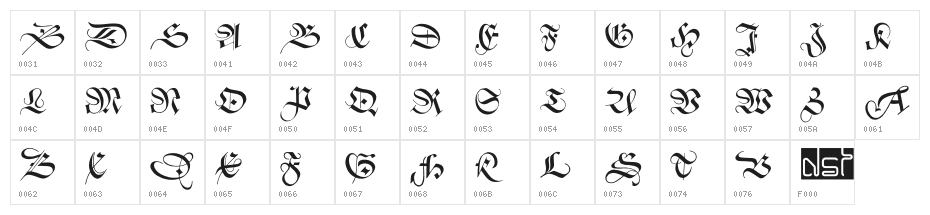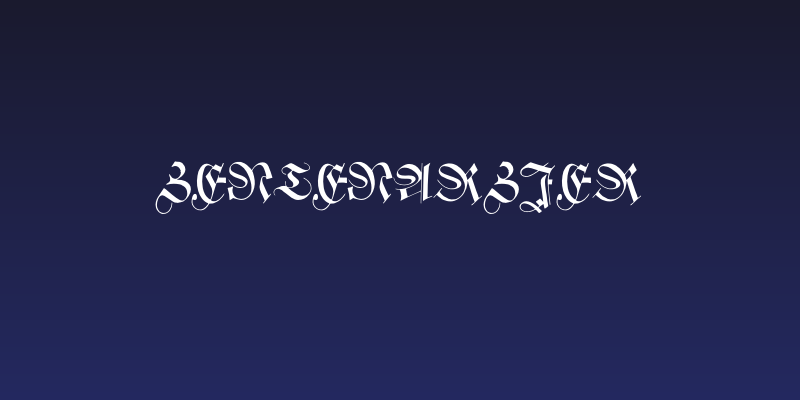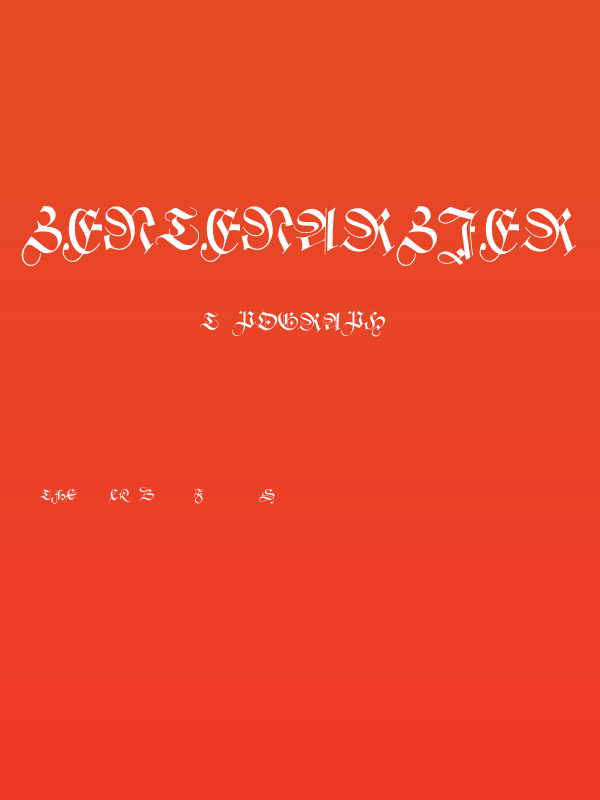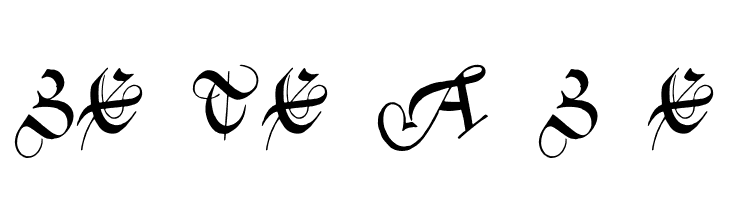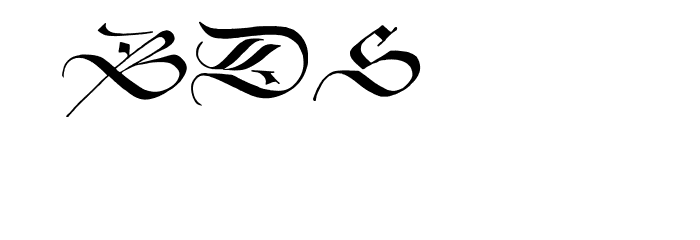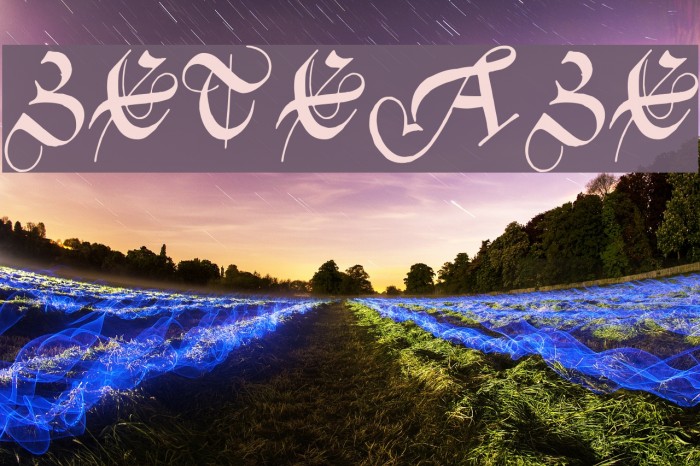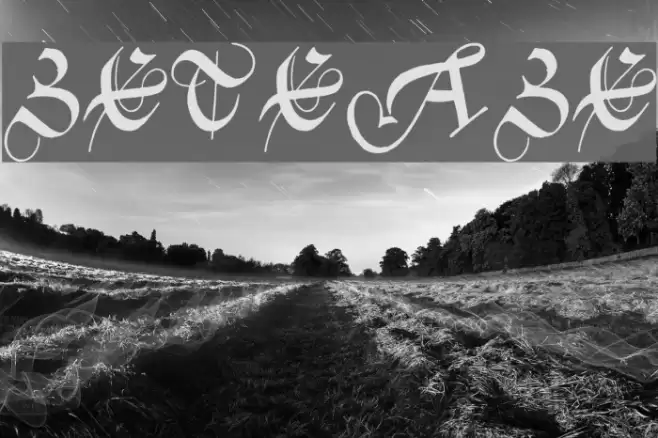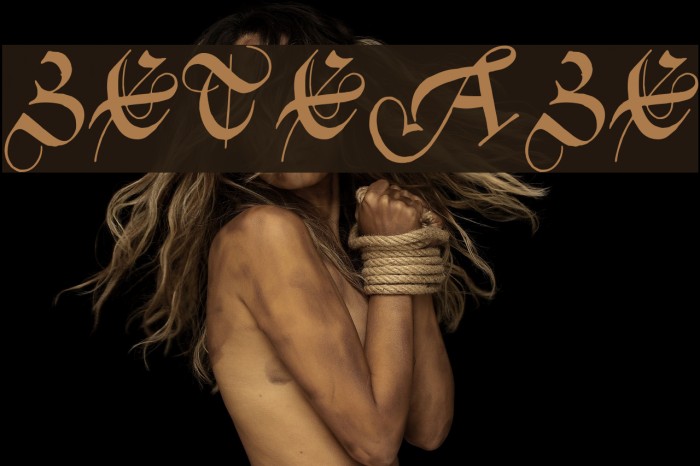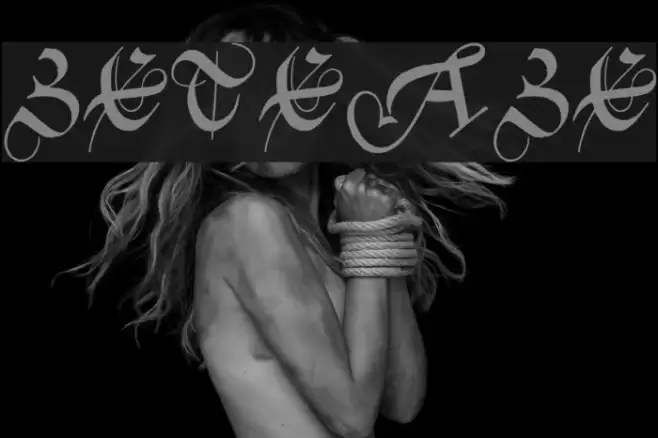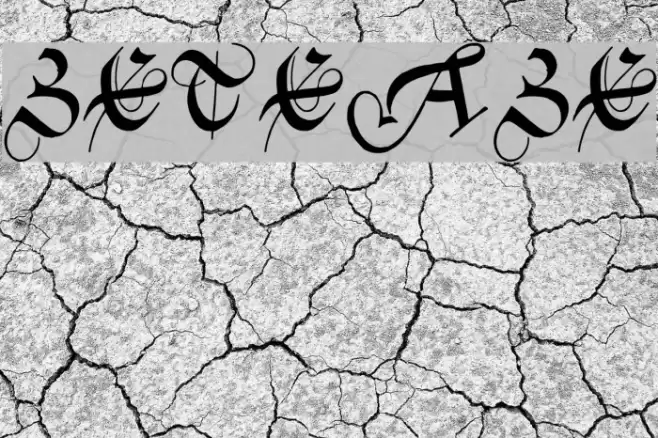
ZentenarZier Font
ZentenarZier Description
This font exhibits a highly decorative and intricate style, reminiscent of traditional calligraphy with a modern twist. The characters are adorned with elaborate flourishes and swashes, giving them a sense of elegance and sophistication. The strokes are bold and confident, with a high contrast between thick and thin lines, which enhances the dramatic appearance of the letters. This font is perfect for creating a striking visual impact, making it ideal for use in designs that require a touch of grandeur and flair. The overall style is both classic and contemporary, blending historical influences with a fresh, artistic approach.
| Use Case | Logos, Headlines, Artistic designs |
| Proposed Projects | Ideal for wedding invitations, luxury branding, certificates, and artistic posters. |